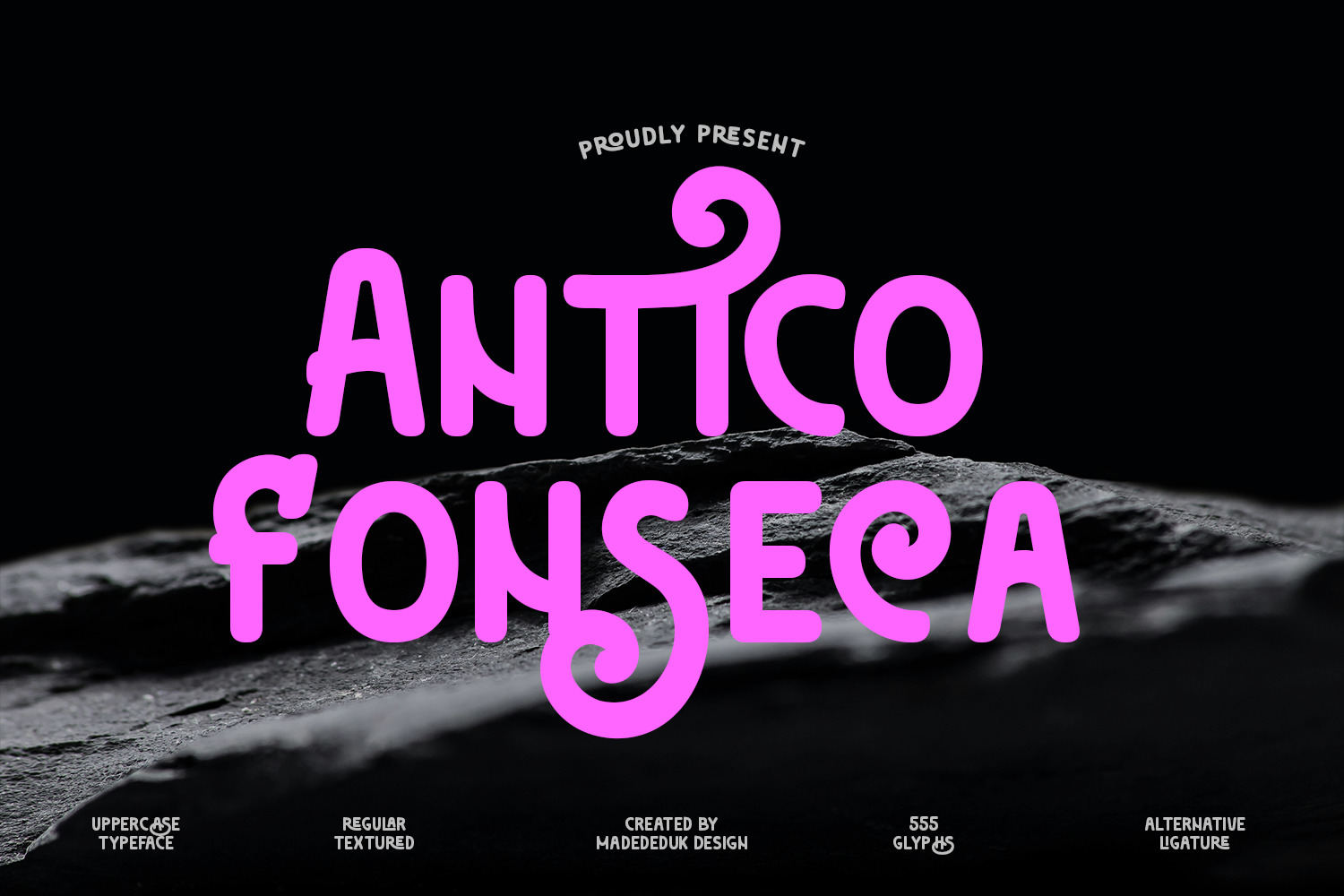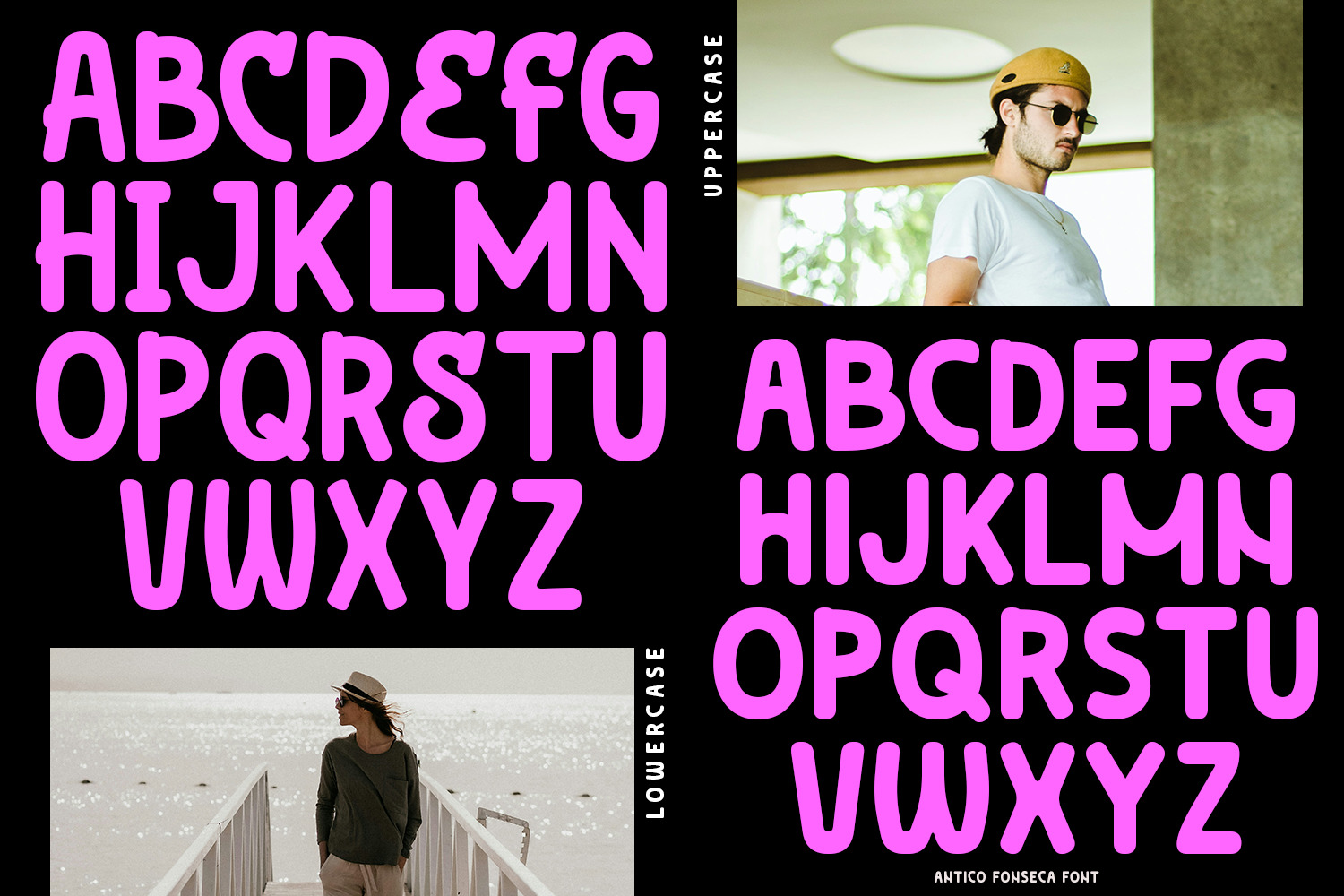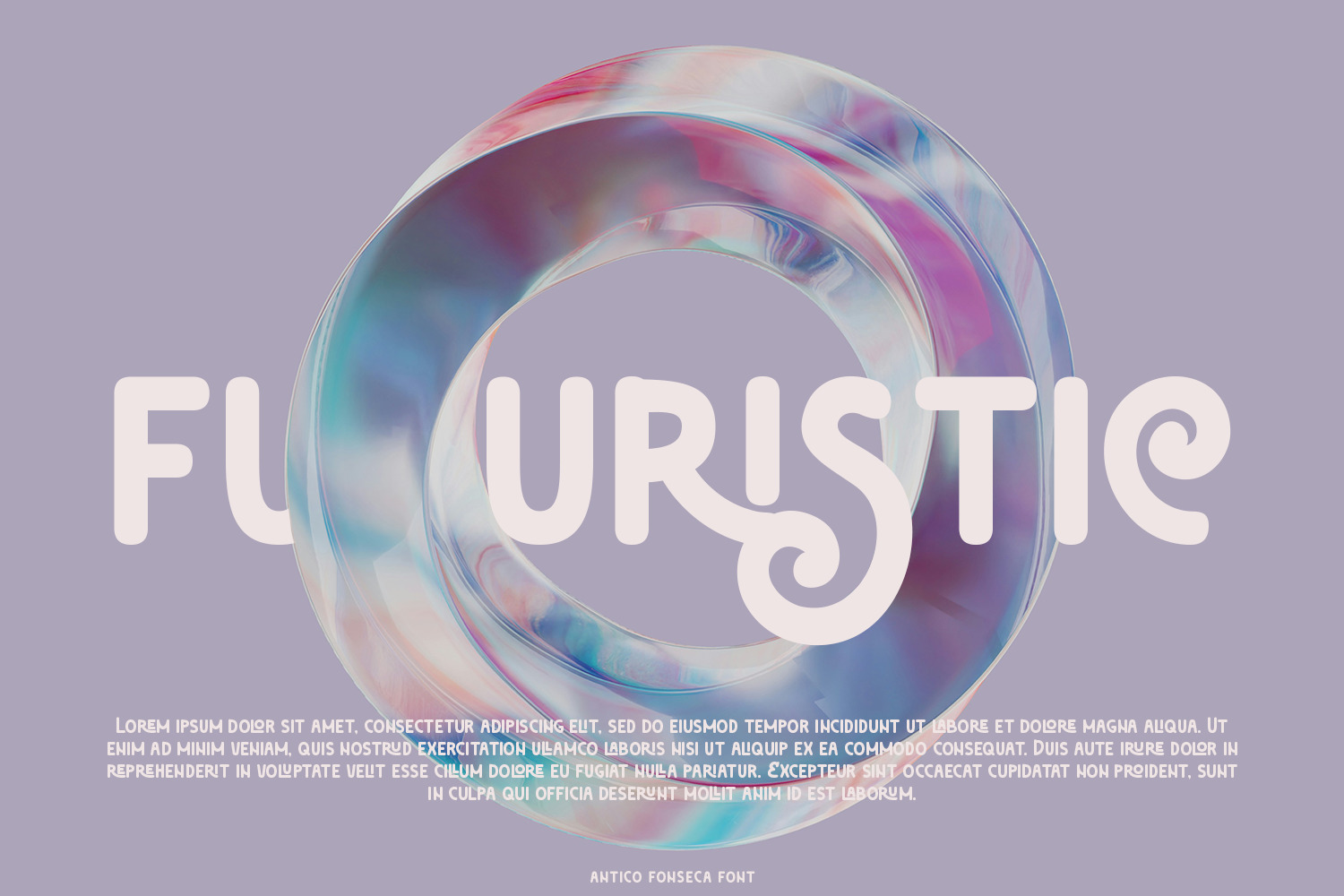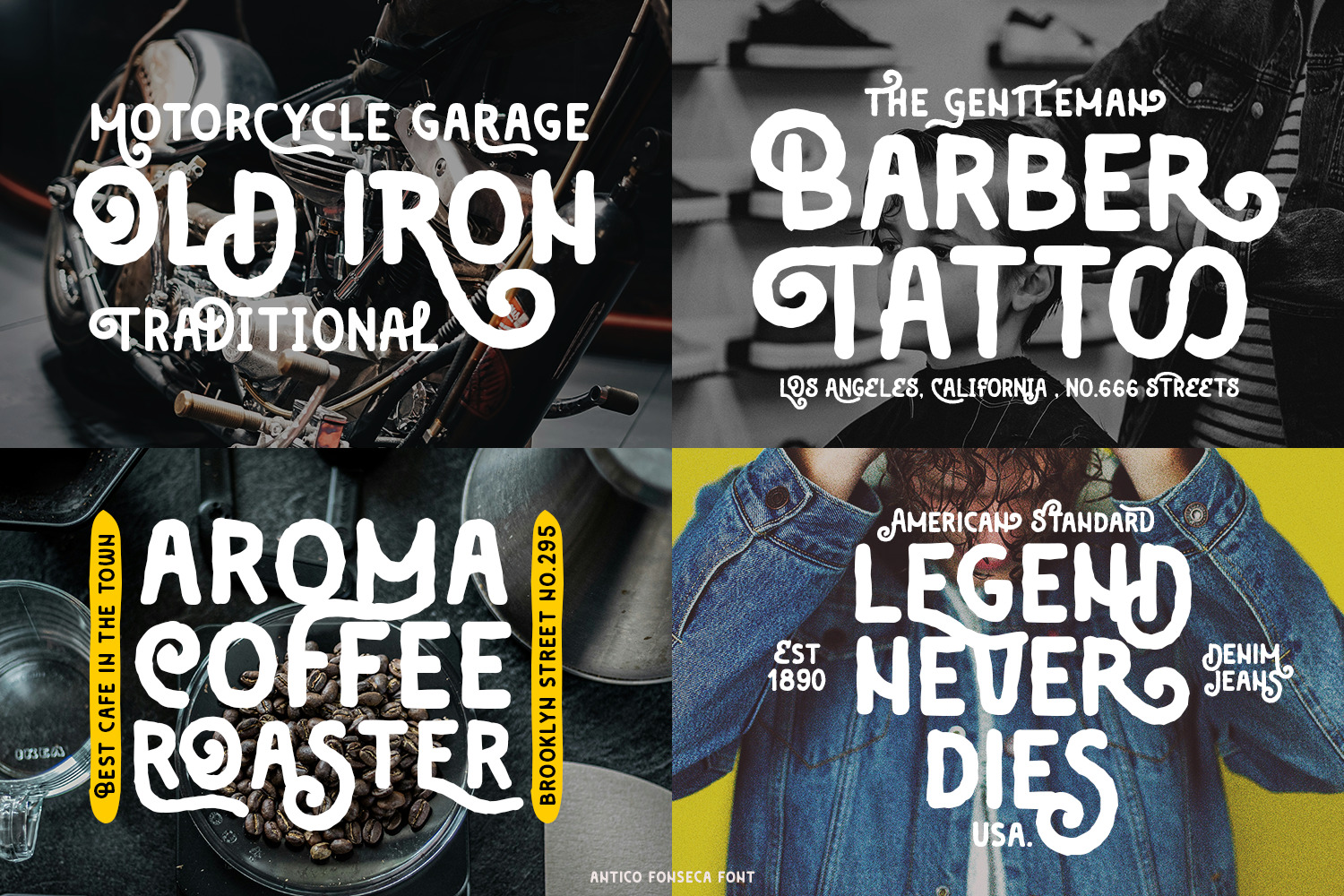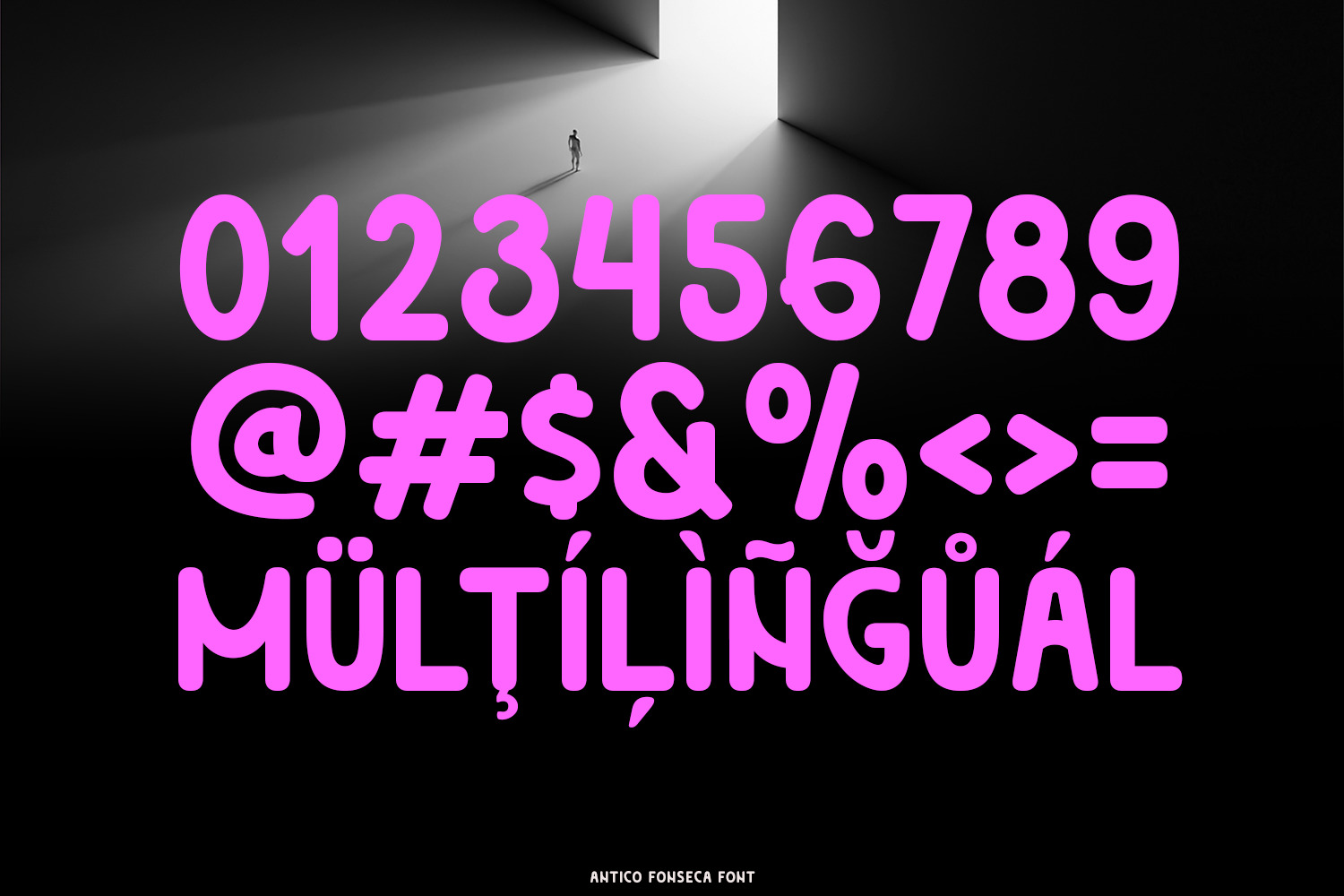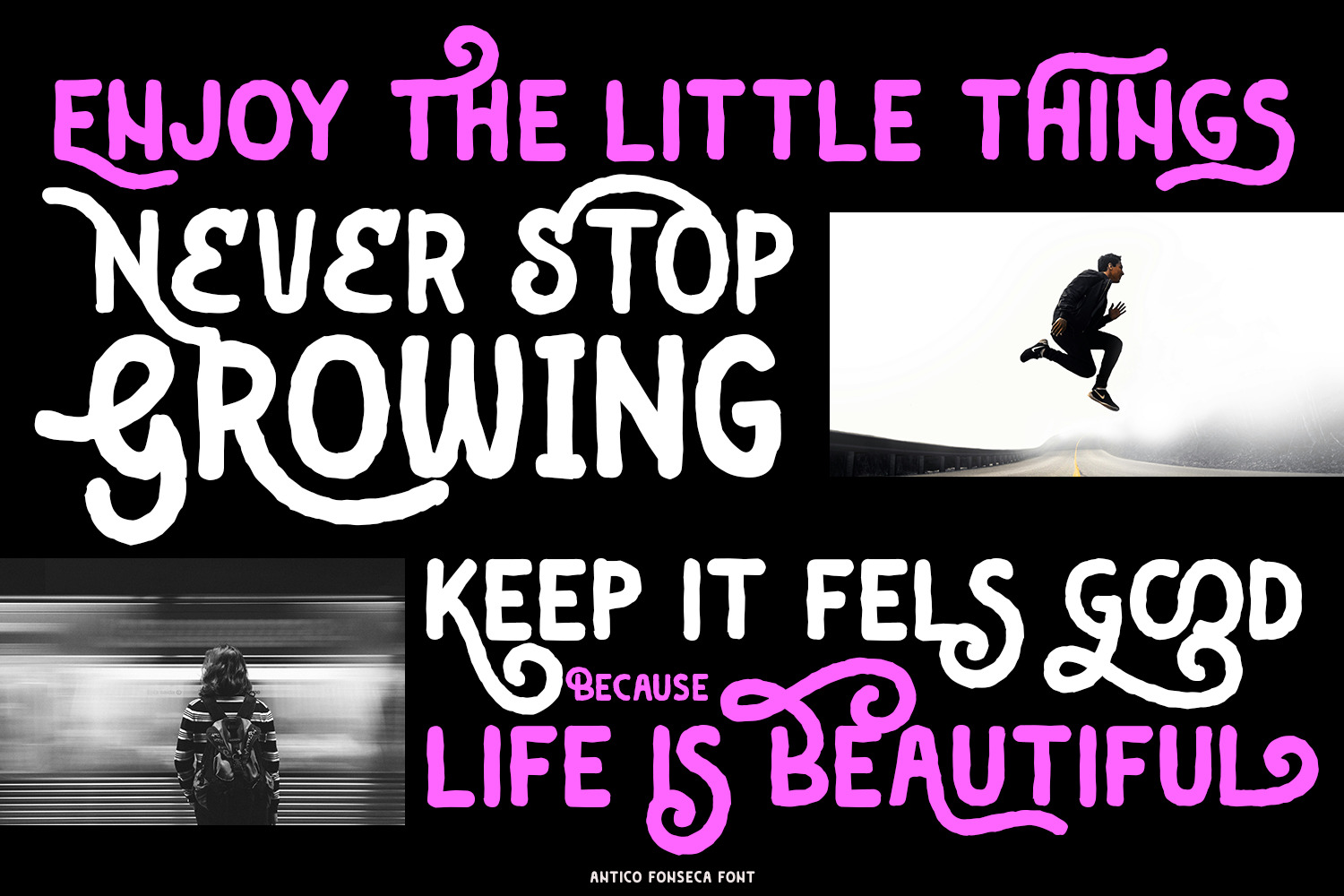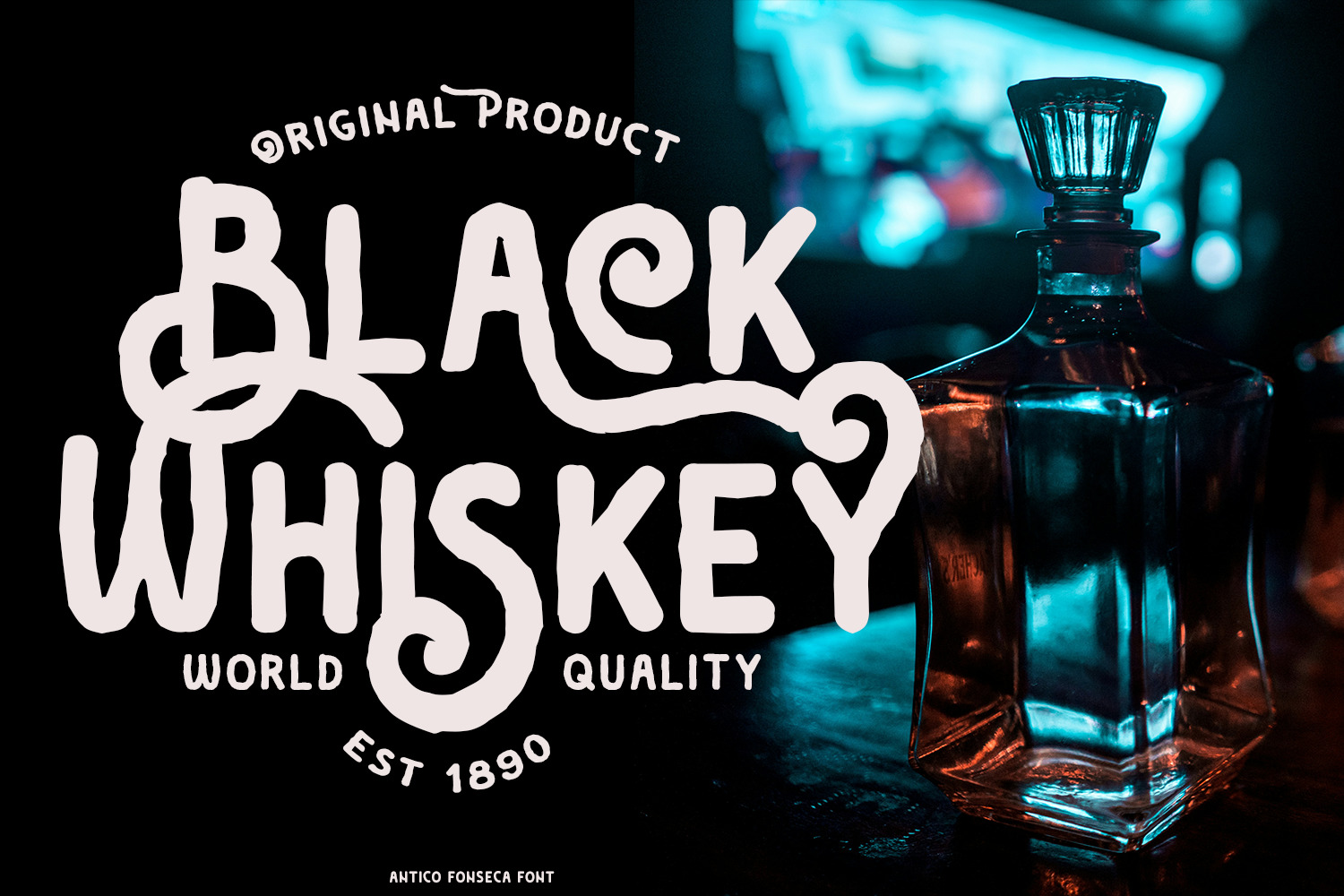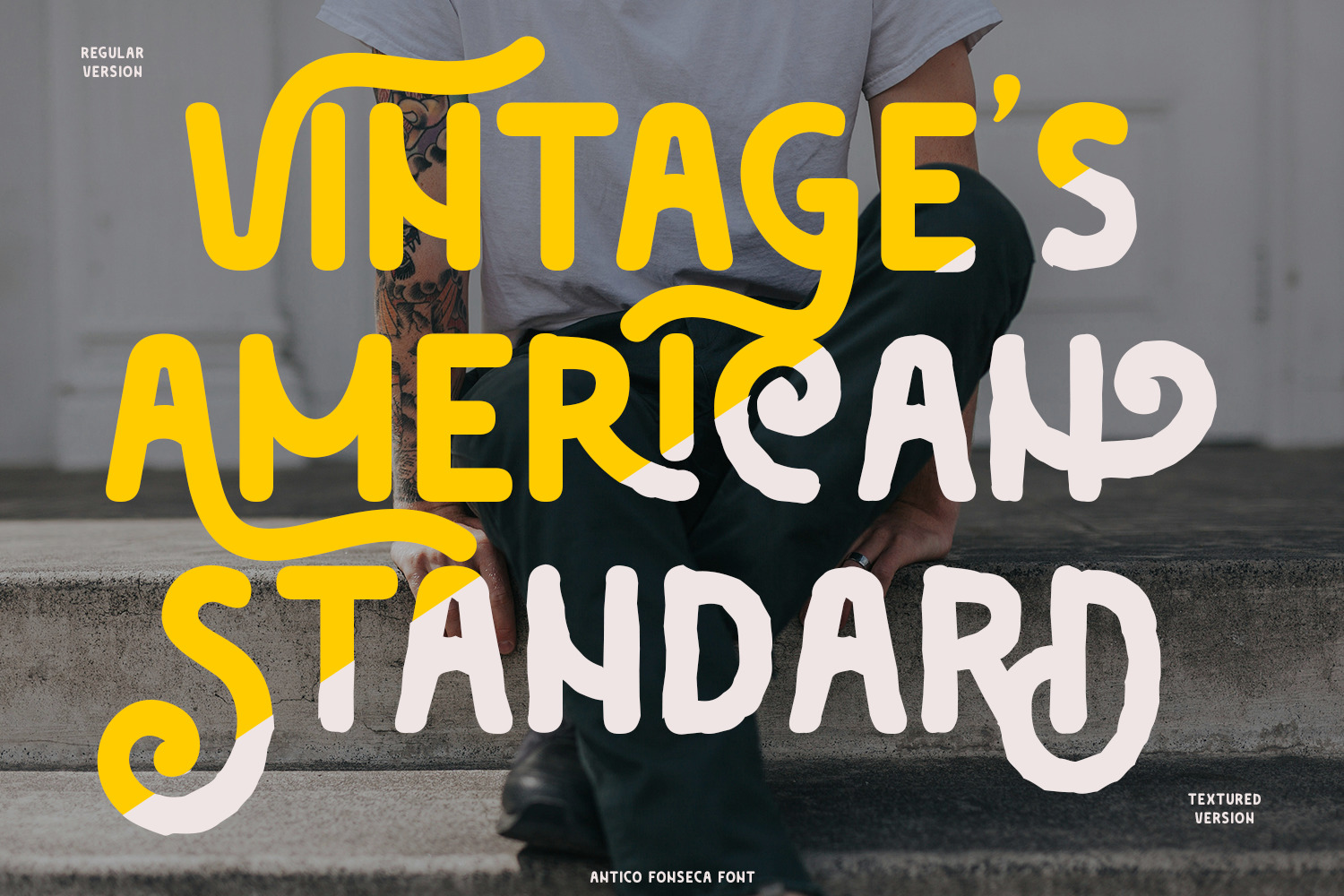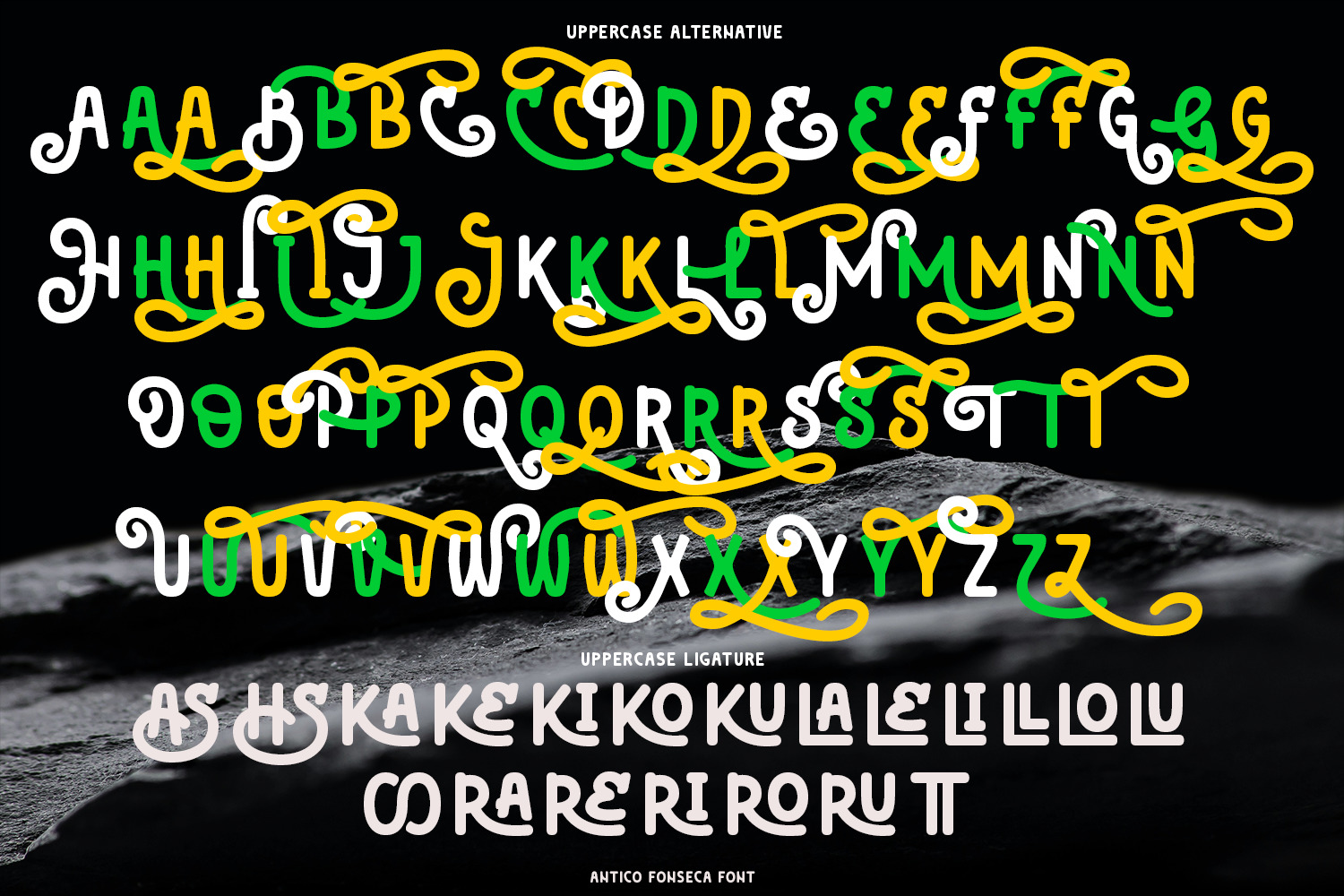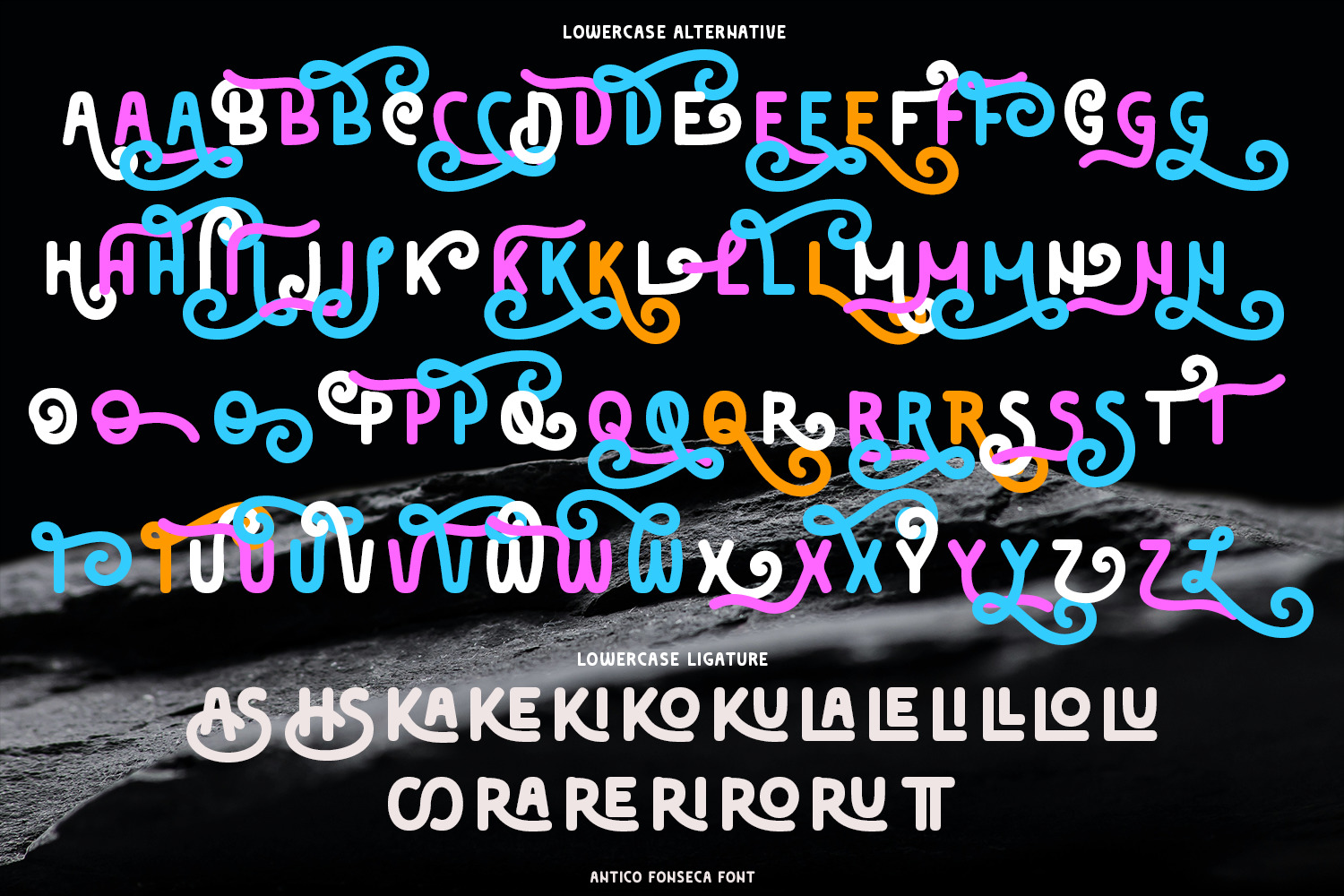
Antico Fonseca Font
Really excited to introduce Antico Fonseca is a vintage typography style. It easily cooperates together and is perfect for creating the traditional style great for quotes and easily make a logotype or badge for your logo with this font. Come with special features regular and textured with a lot of alternative and ligature style.
- Number & Symbol
- International Glyphs
- Ligature
- Alternative